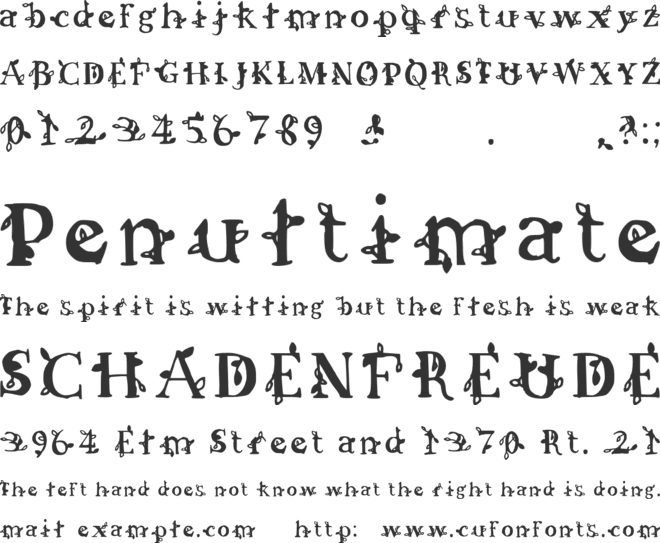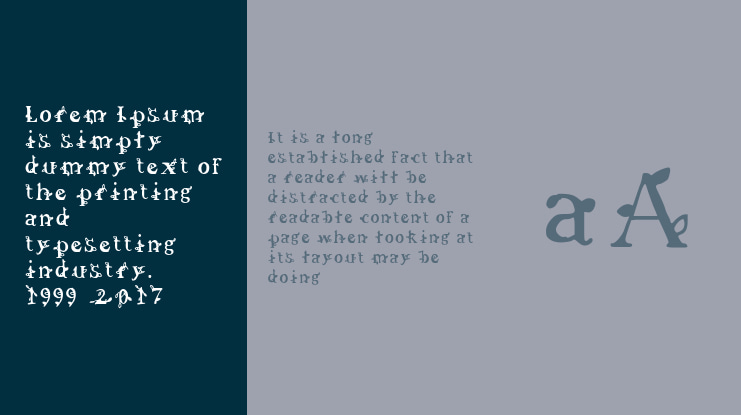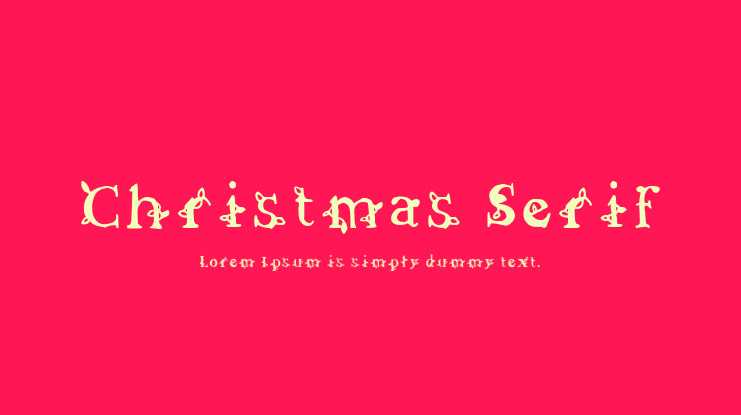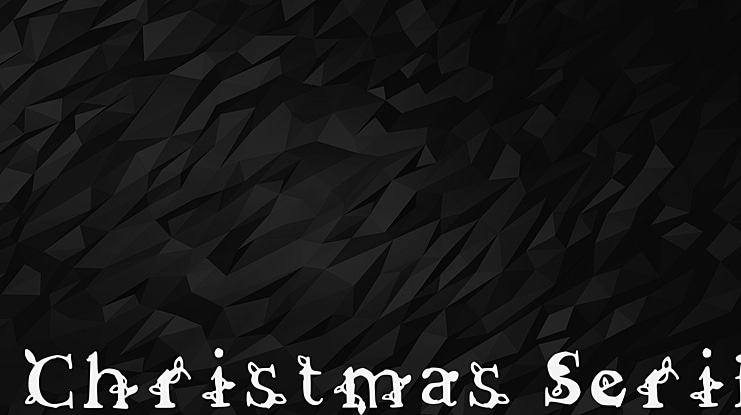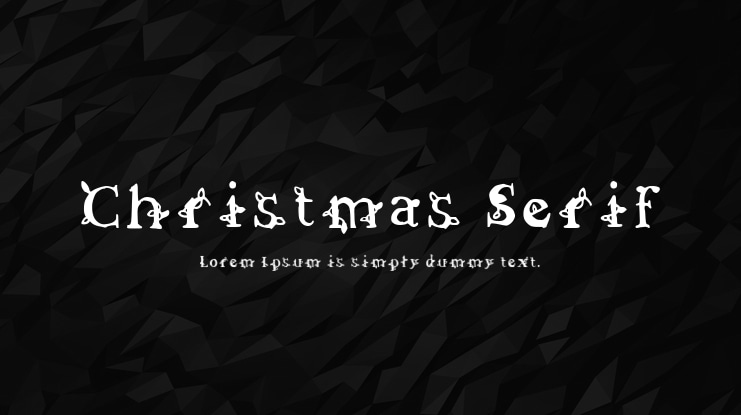
Christmas Serif Font
This is a font made by me just for the holidays. I deeply apologize if I have not met the expectations. If I haven't, let me know at